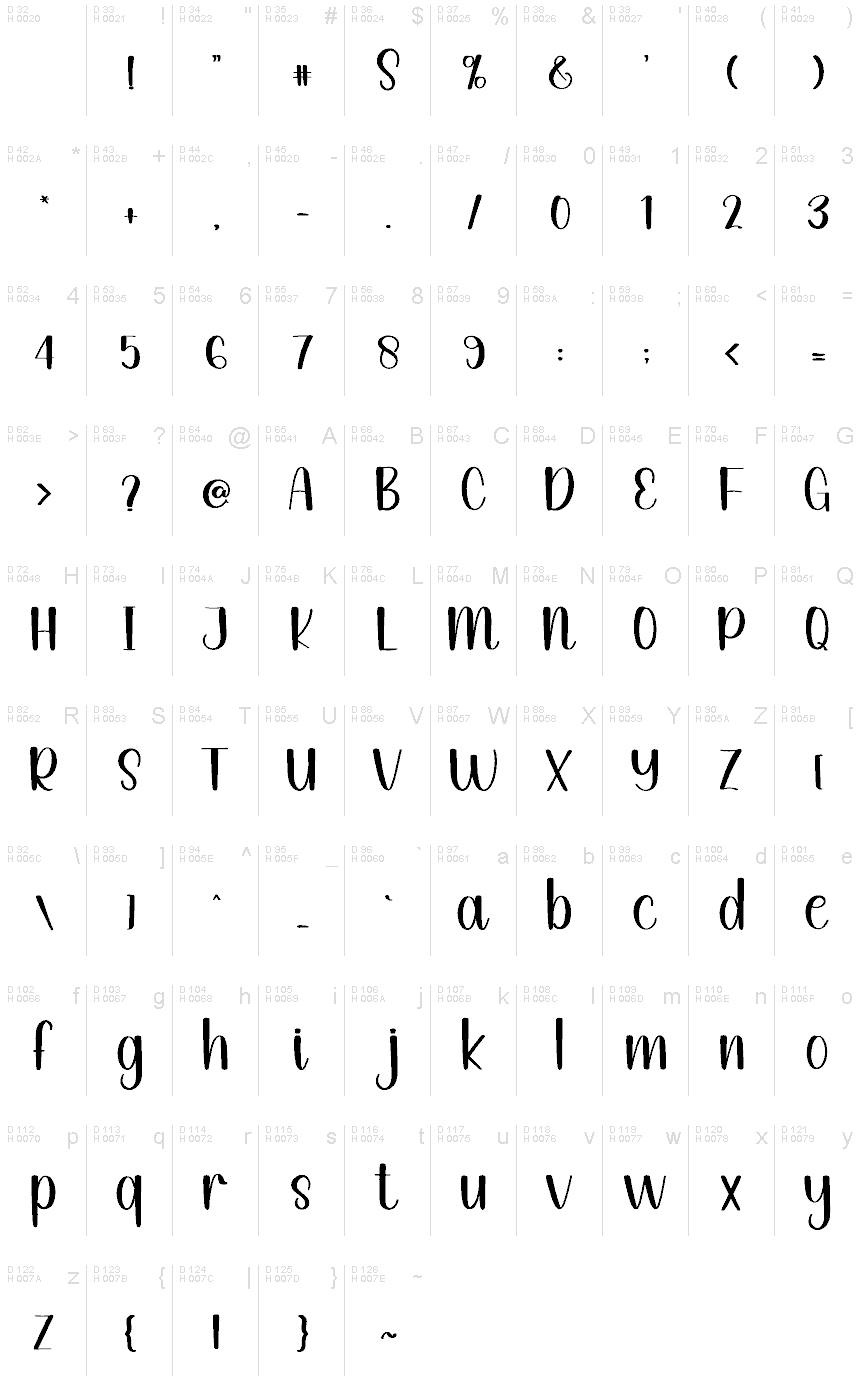
Small
Small font by Inermedia Studio is a free handwritten font inspired by retro styles with a modern twist. Casual with a friendly and approachable vibe, it suits a variety of project types. The characters present simple curved lines in multiple directions in sync with misplaced letter widths for an overall ragged vibe.
This bring vividness and uniqueness to each piece of text whether it's branding ideas, apparel designs, or posters for concerts or quizzes. Stickers can even hold the engaging texts for conversation starters as well as packaging presentations for indie brands like gamers or juice retailers!